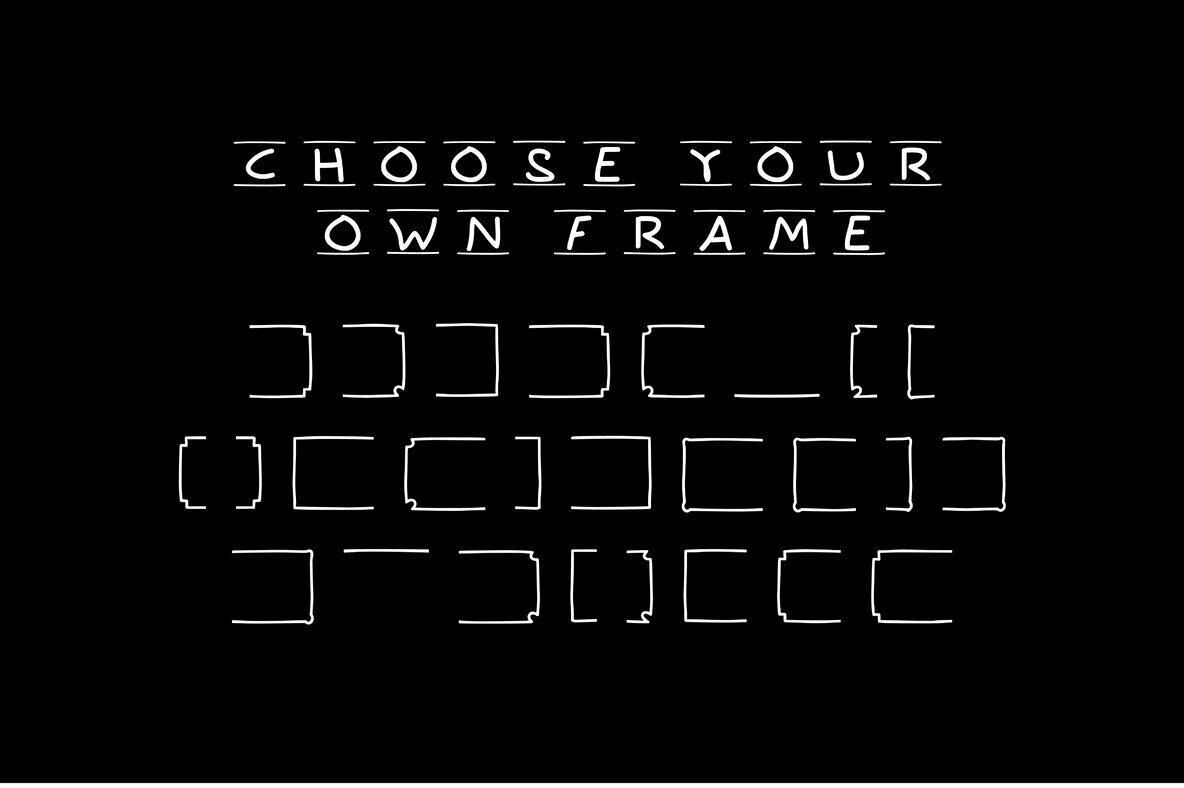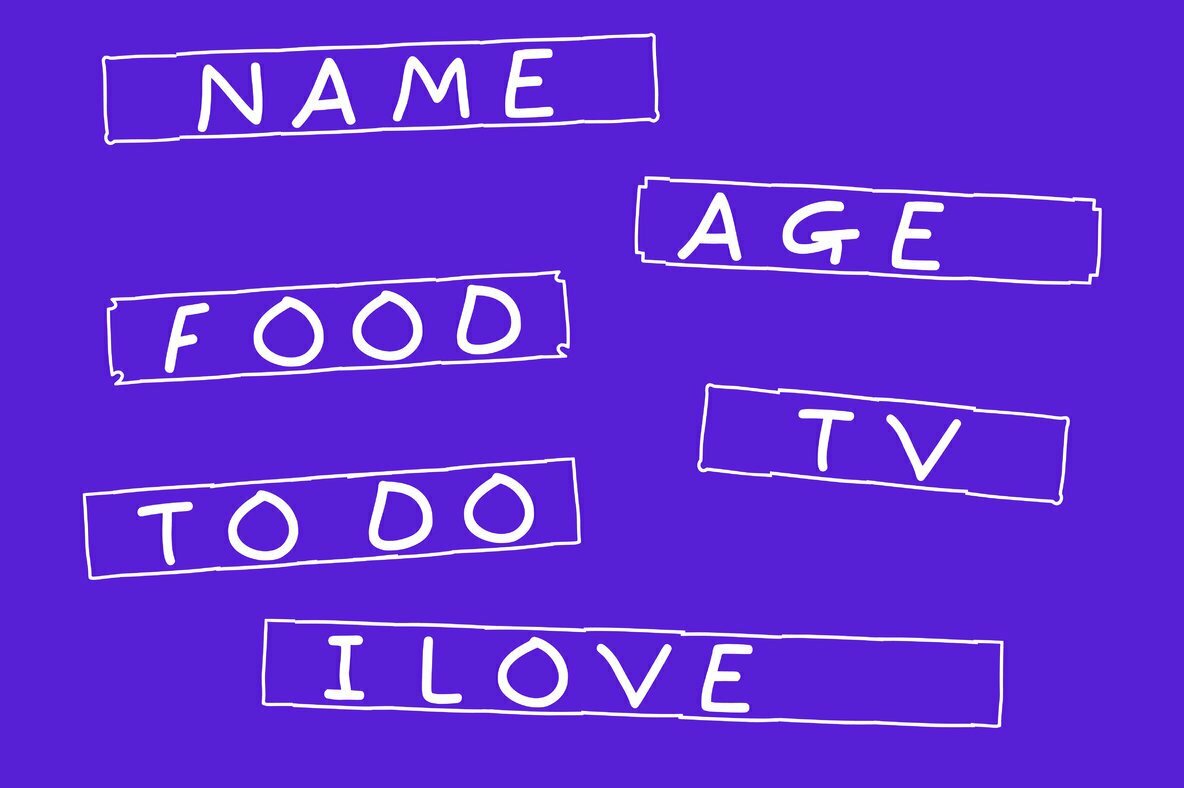
Label kit Font
Labelkit
Need a label quick? Want to make it look like you did it yourself? Choose from 5 different frame styles, write your message and print, Easy!